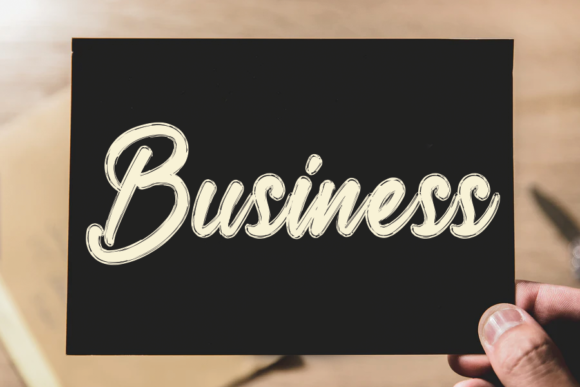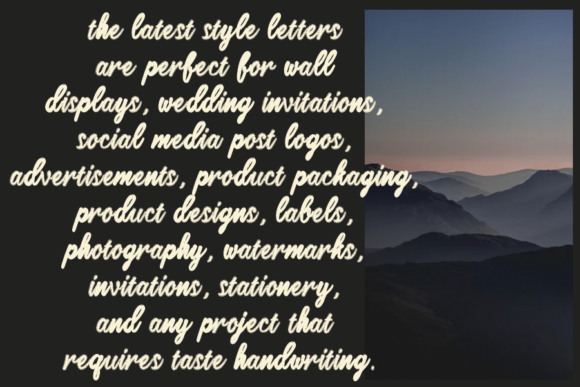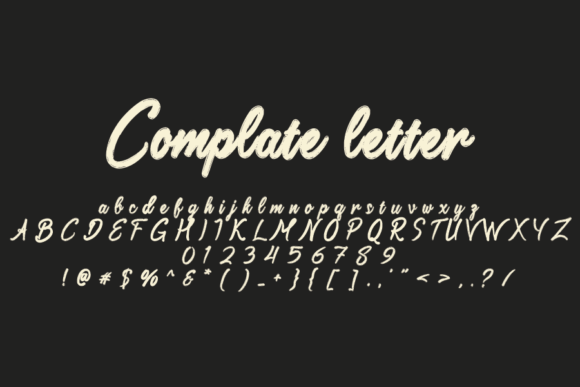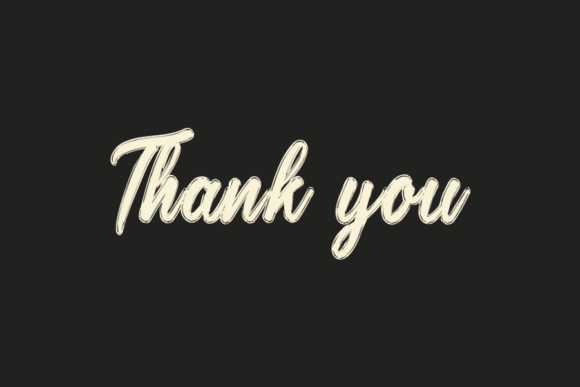
Introduction to Bountiful Font
Have you ever stared at a blank page, waiting for inspiration to strike? It’s a moment we’ve all experienced as designers, and it’s precisely this creative limbo that makes us so eager to find that perfect font to bring our ideas to life. For many of us, the right font can be the difference between a decent design and a truly exceptional one.
That’s where the Bountiful Font comes in – a stunning, high-quality handwritten font that adds a touch of elegance to any creative project. Its classic roots, combined with a modern twist, make it the ideal choice for designers looking to elevate their work. With its versatility in use, from web design to print, and even motion graphics, Bountiful Font is an invaluable resource for any design enthusiast.
Whether you’re working on a personal project or a commercial one, the Bountiful Font is sure to leave a lasting impression. Plus, with its transparent background, you can easily integrate it into any design, making it a free download that’s truly priceless.
Key Features of Bountiful Font
- Unique, elegant script font with a transparent background for seamless integration
- Perfect design resource for wedding invitations, greeting cards, and other special occasions
- Includes a wide range of characters, including uppercase and lowercase letters, numbers, and punctuation marks
Honest Review: Bountiful Font
I recently had the chance to work with the Bountiful Font, and I must say it’s a great addition to any design project. This high-quality font is perfect for creating visually appealing designs, and its free download makes it an excellent design resource for both beginners and professionals.
- What works well: ✨ The Bountiful Font has a unique, creative feel that adds a touch of elegance to any project. Its transparent background makes it easy to combine with other design elements.
- What works well: ✨ The font is highly customizable, allowing you to adjust the size, color, and style to fit your design needs.
However, there are a few limitations to keep in mind: ⚠️ The font may not be suitable for all types of projects, particularly those that require a more formal or traditional look. Additionally, the font may not be compatible with all operating systems or software.
Overall, I’m impressed with the Bountiful Font. Its unique design, high quality, and free download make it an excellent design resource for any creative project. While it may have some limitations, it’s definitely worth considering for your next design project.
The Bountiful Font is ideal for a variety of creative projects, including business cards, brochures, and social media graphics. Its high quality design and transparent background feature make it an excellent choice for designers looking for a versatile and easy-to-use font.